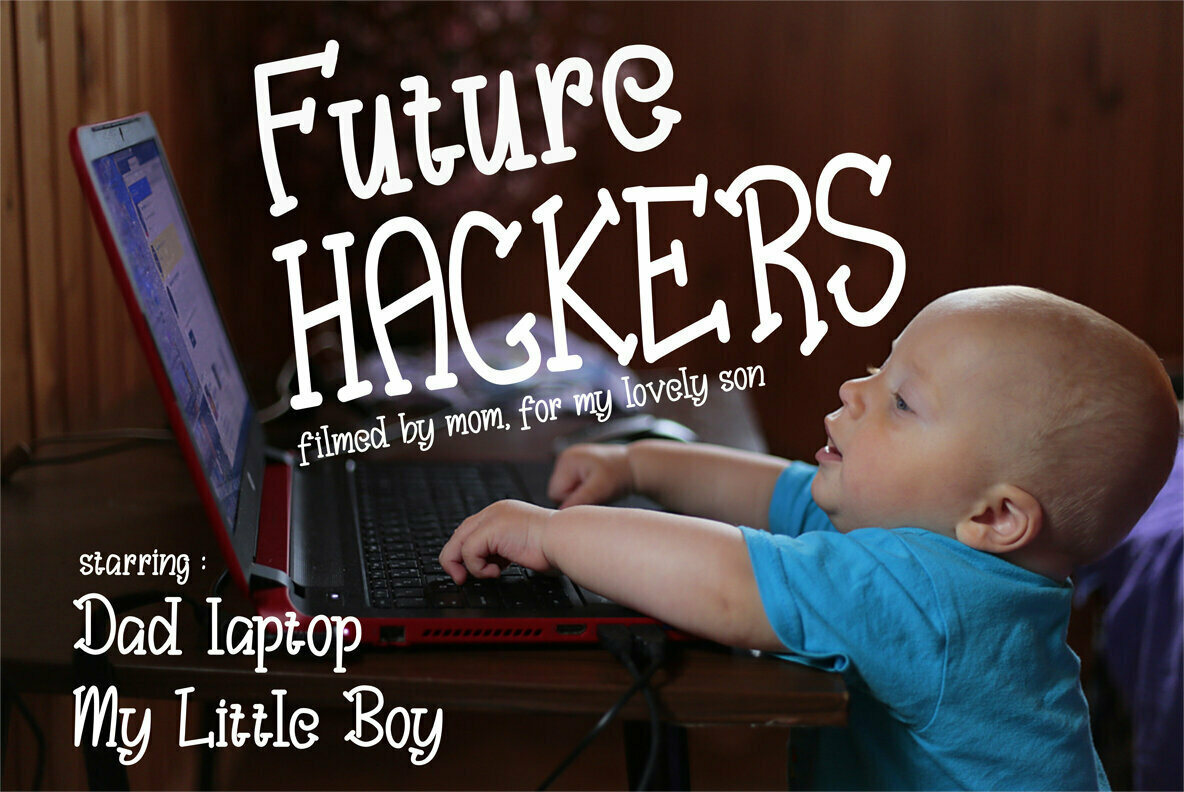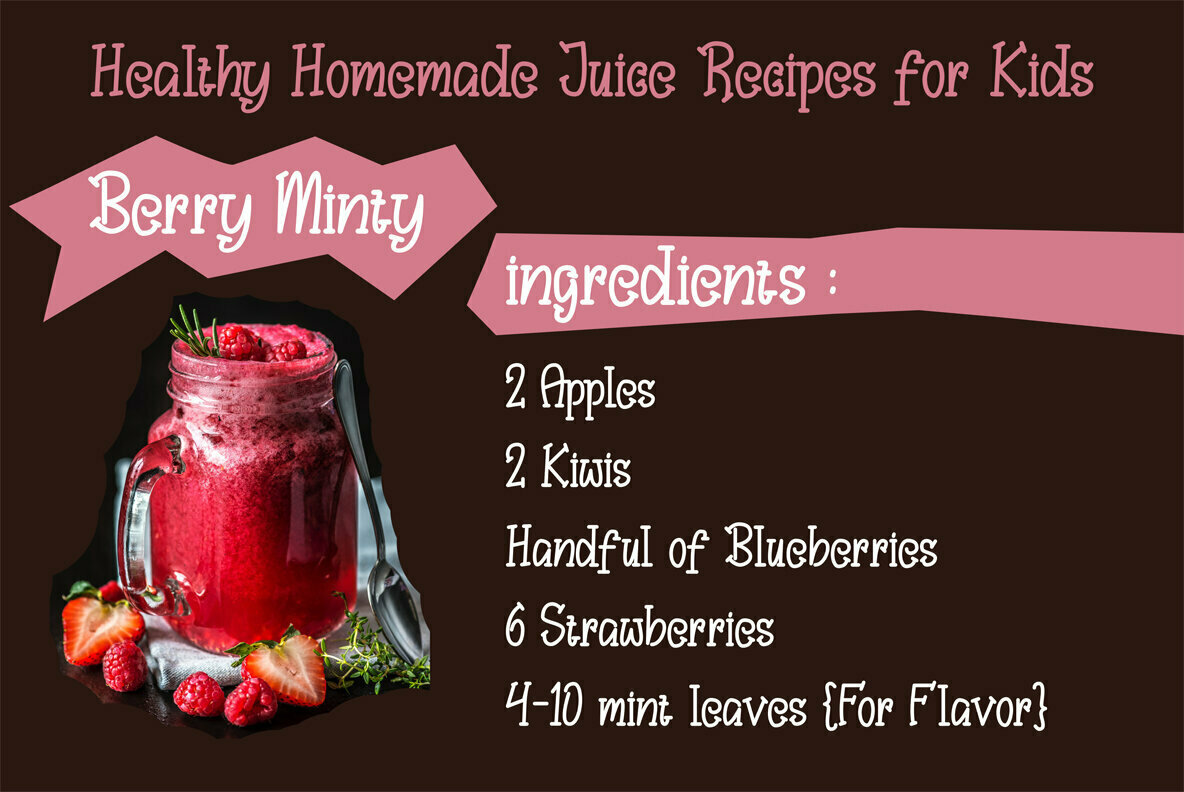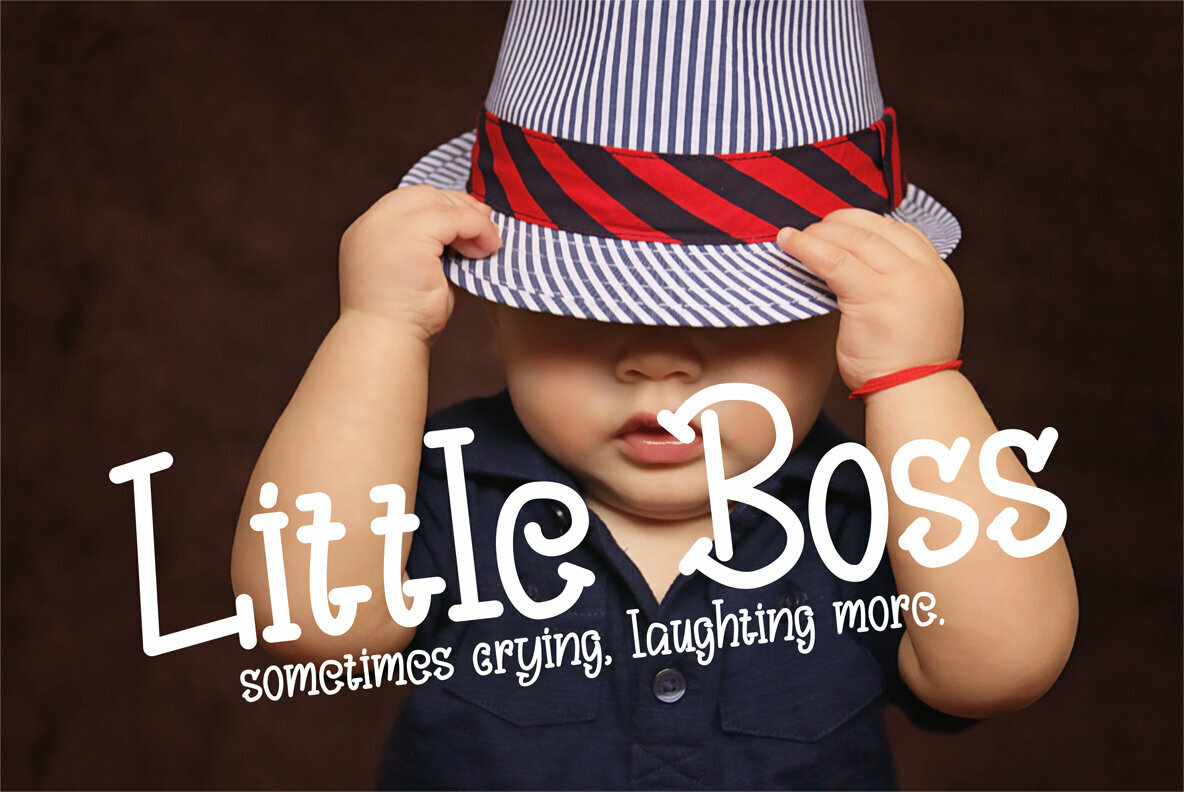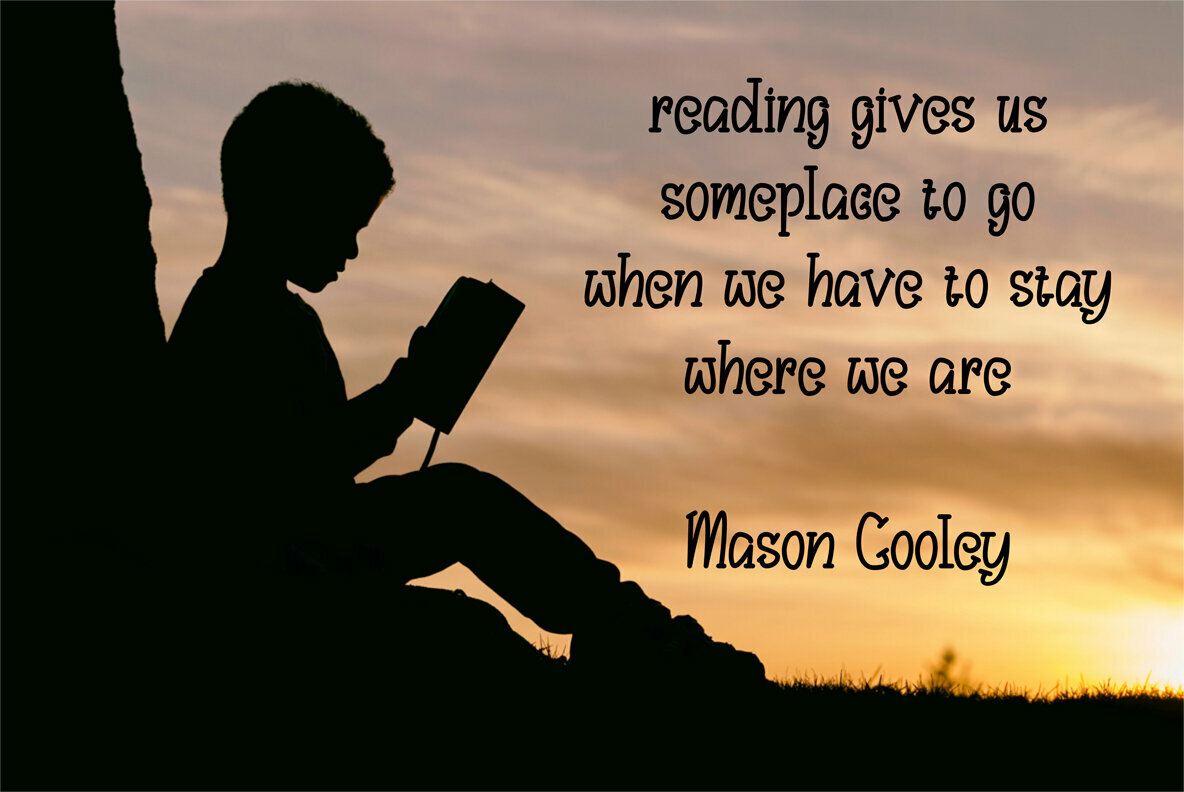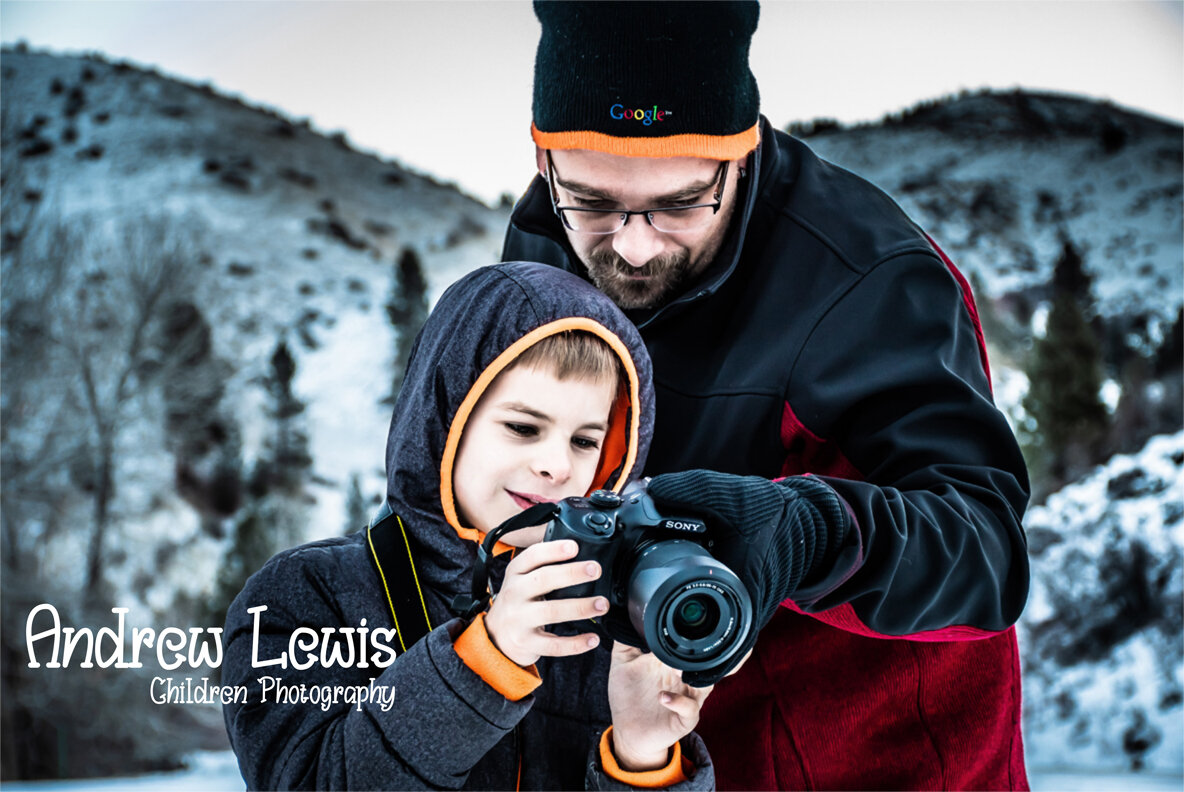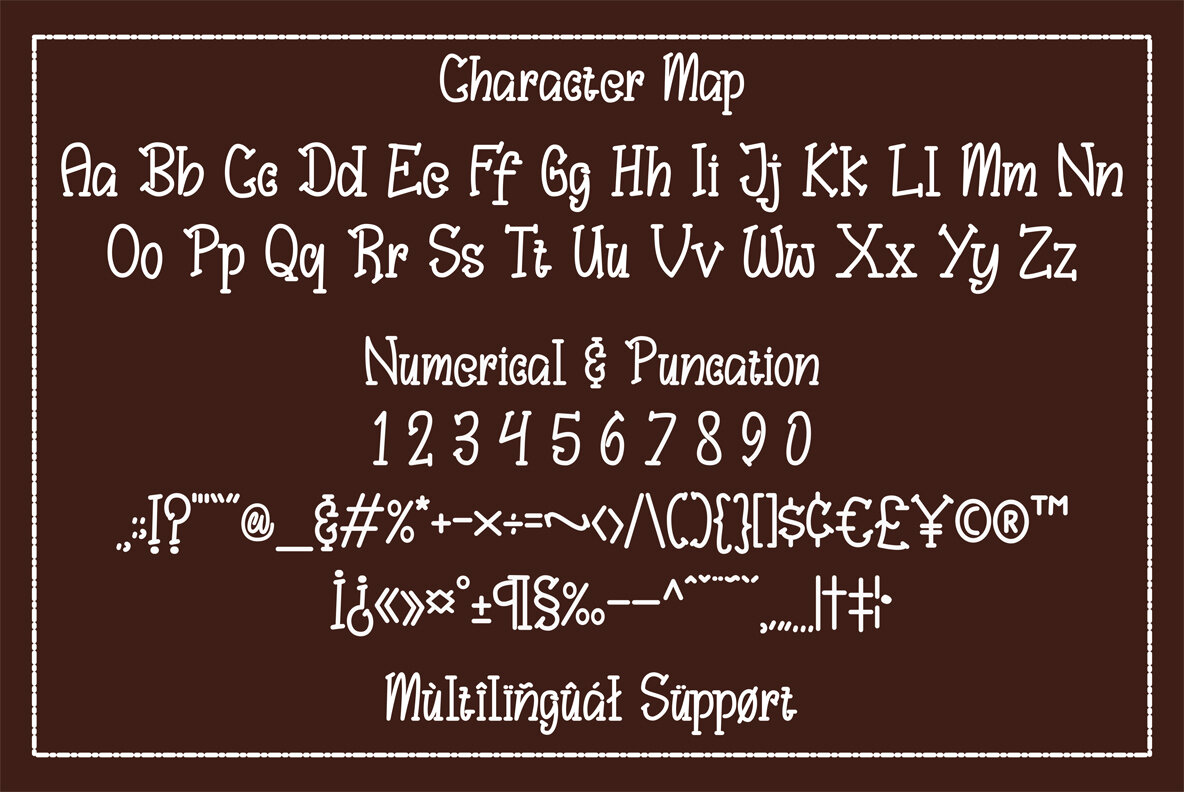
Bungah: A Versatile Typeface for Creative Projects
Bungah offers a refined elegance that complements a myriad of design projects. Whether crafting a striking logo, elevating quotes, or designing on the textile canvas of clothing and mugs, this typeface effortlessly adapts, bringing sophistication to the fore.
• Adaptability – Suitable for logos, quotes, apparel, and magazines.
• Elegant Design – Enhances various mediums with ease.